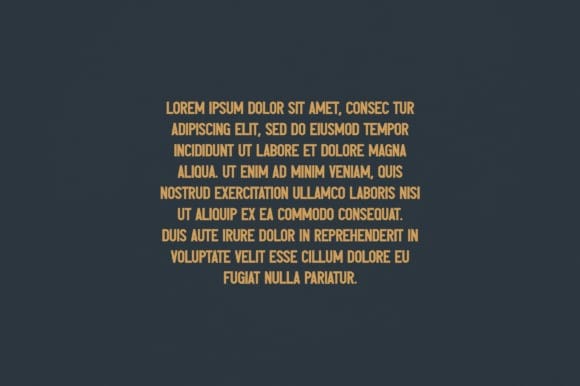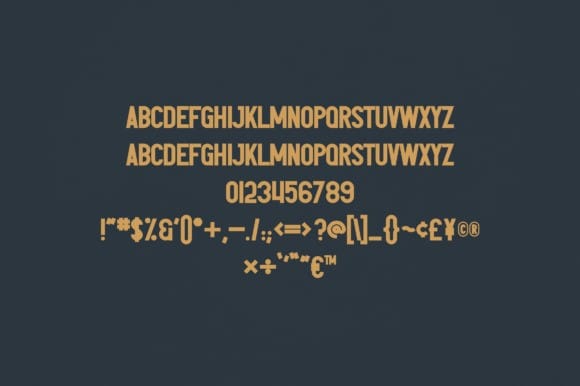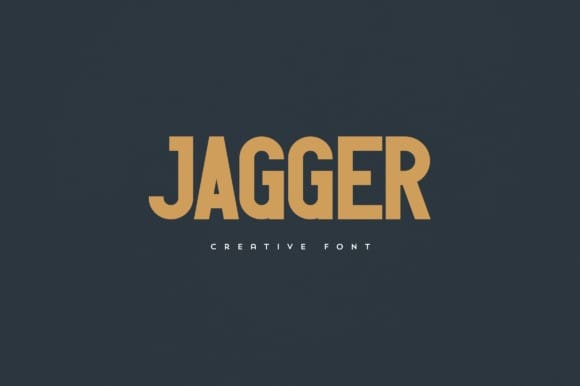
Jagger Font
Jagger Font is an elegant and versatile font that will make your typography truly unique! It will enchant every logo, branding, headline, or plain text!